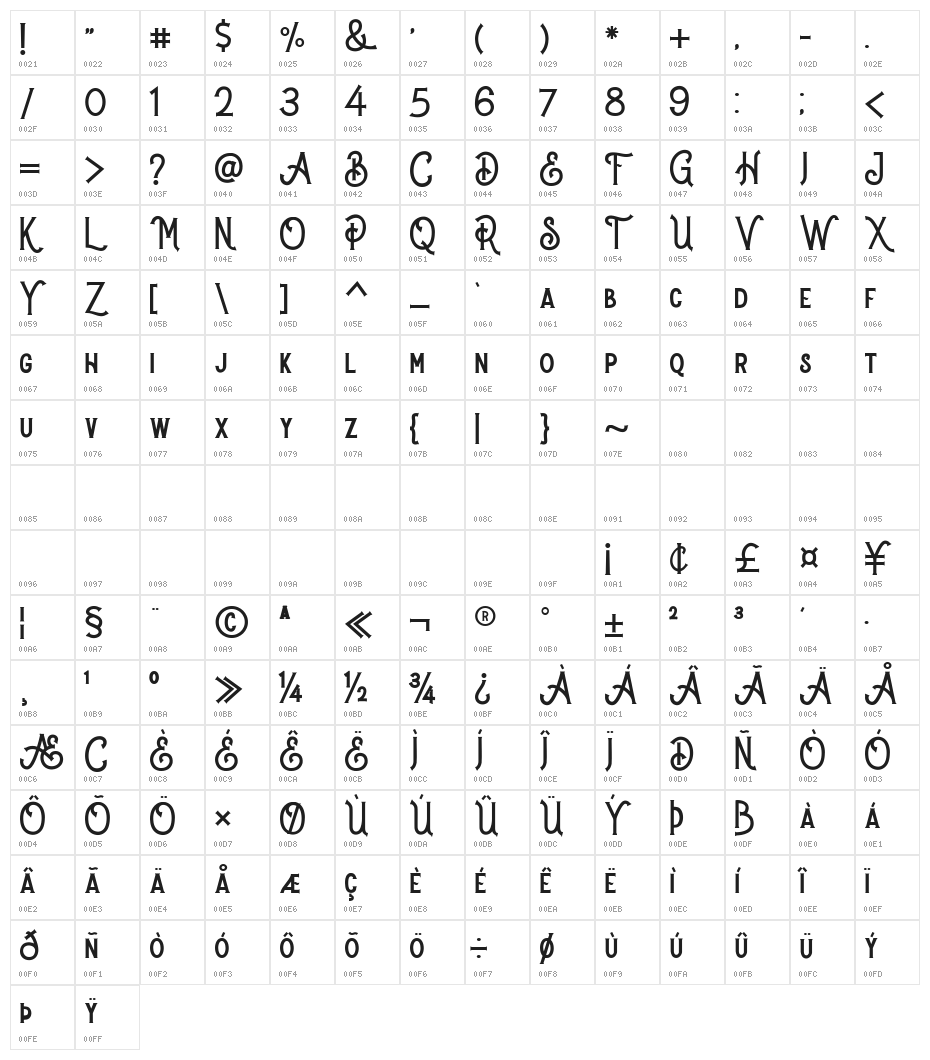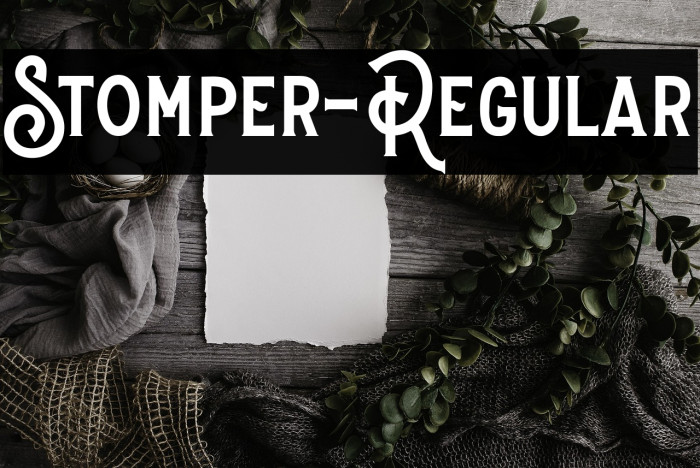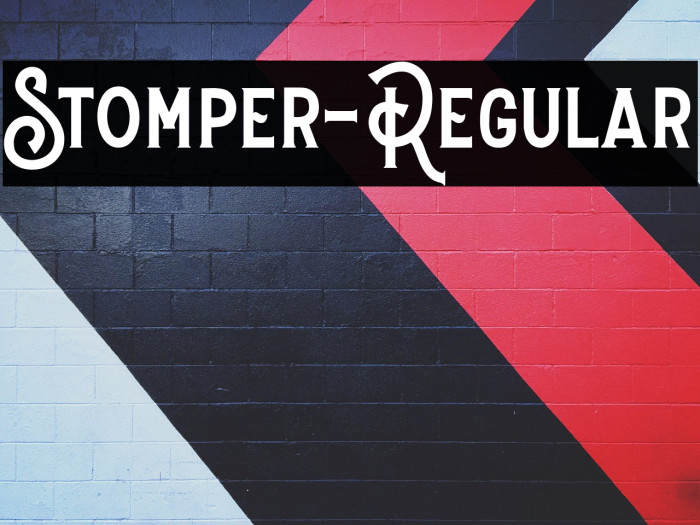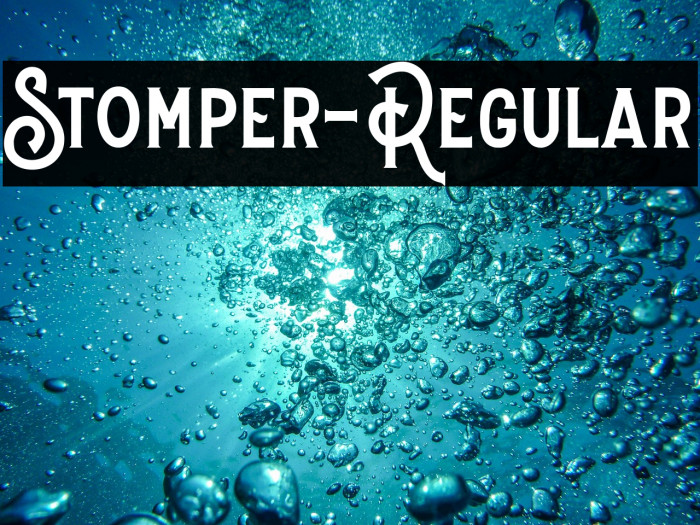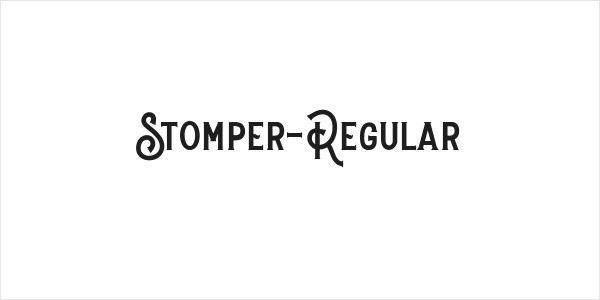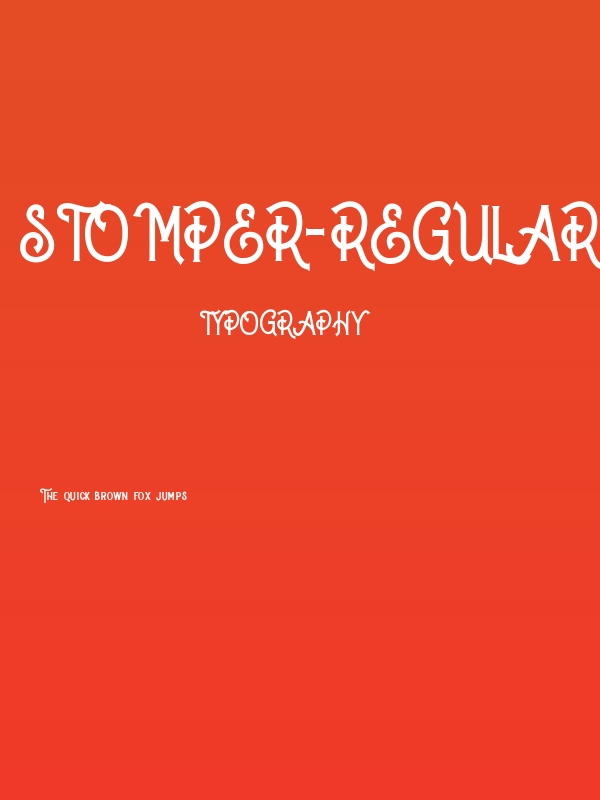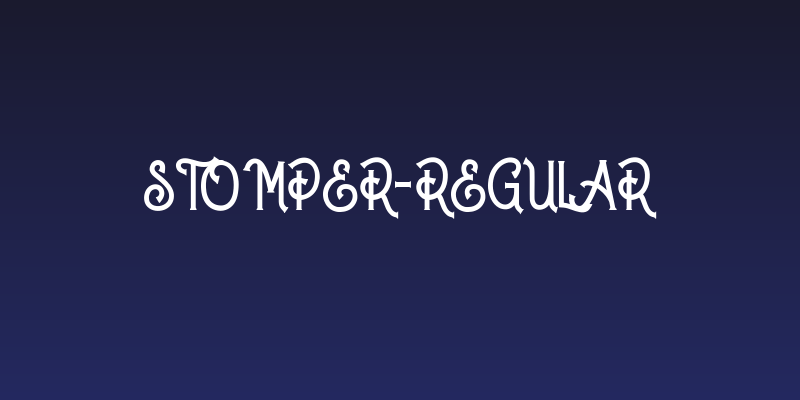
Stomper-Regular Font
Stomper-Regular Description
This font features a bold and decorative style with a unique flair in its letterforms. The uppercase letters exhibit a playful, almost whimsical design with intricate curves and loops, particularly noticeable in characters like 'A', 'B', and 'G'. The lowercase letters maintain this decorative theme, offering a consistent visual appeal. The numerals are bold and clear, ensuring readability while maintaining the font's overall artistic style. Special characters are designed with the same attention to detail, making them stand out. This font is ideal for projects that require a strong visual impact.